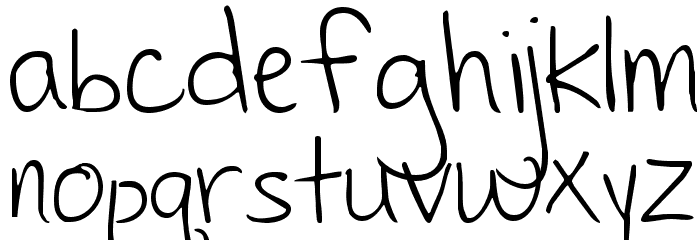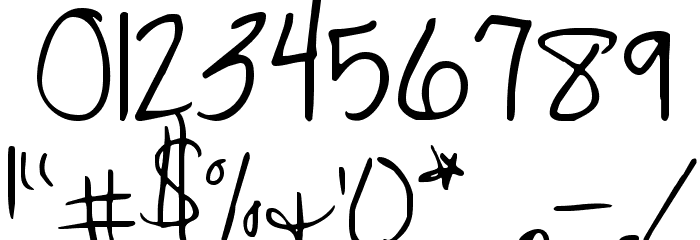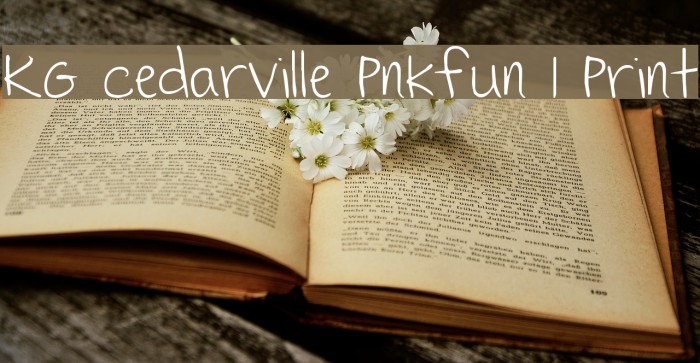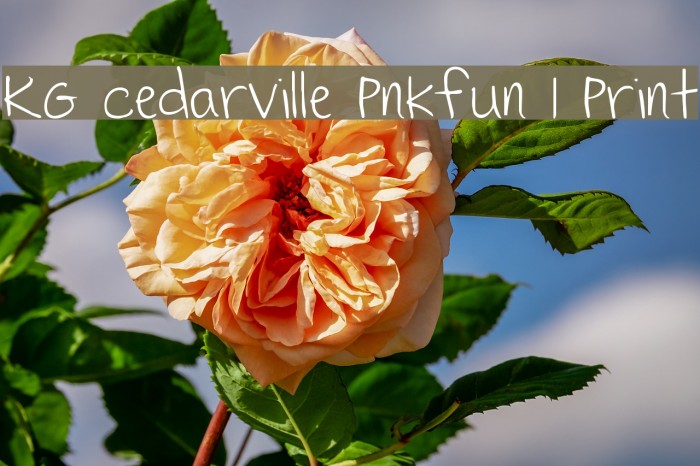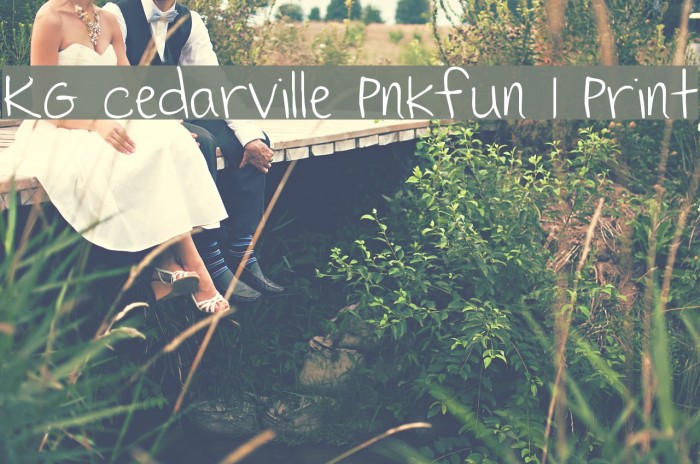
KG Cedarville Pnkfun 1 Print Font
This playful and casual font features a handwritten style with a slightly irregular baseline, giving it a lively and informal appearance. The characters are crafted with a consistent stroke width, maintaining a uniform look throughout. The uppercase and lowercase letters are well-balanced, with a slight slant that adds to the dynamic feel. The numerals and special characters are designed to match the overall style, ensuring cohesion across all elements. This font is ideal for projects that require a personal touch, such as invitations, greeting cards, or creative branding.
A playful handwritten font with a casual, dynamic style.
- Proposed Projects: Ideal for invitations, greeting cards, children's books, and creative branding.
- Overall Style: Casual, Playful
- Use Case: Headlines, Informal text, Creative projects